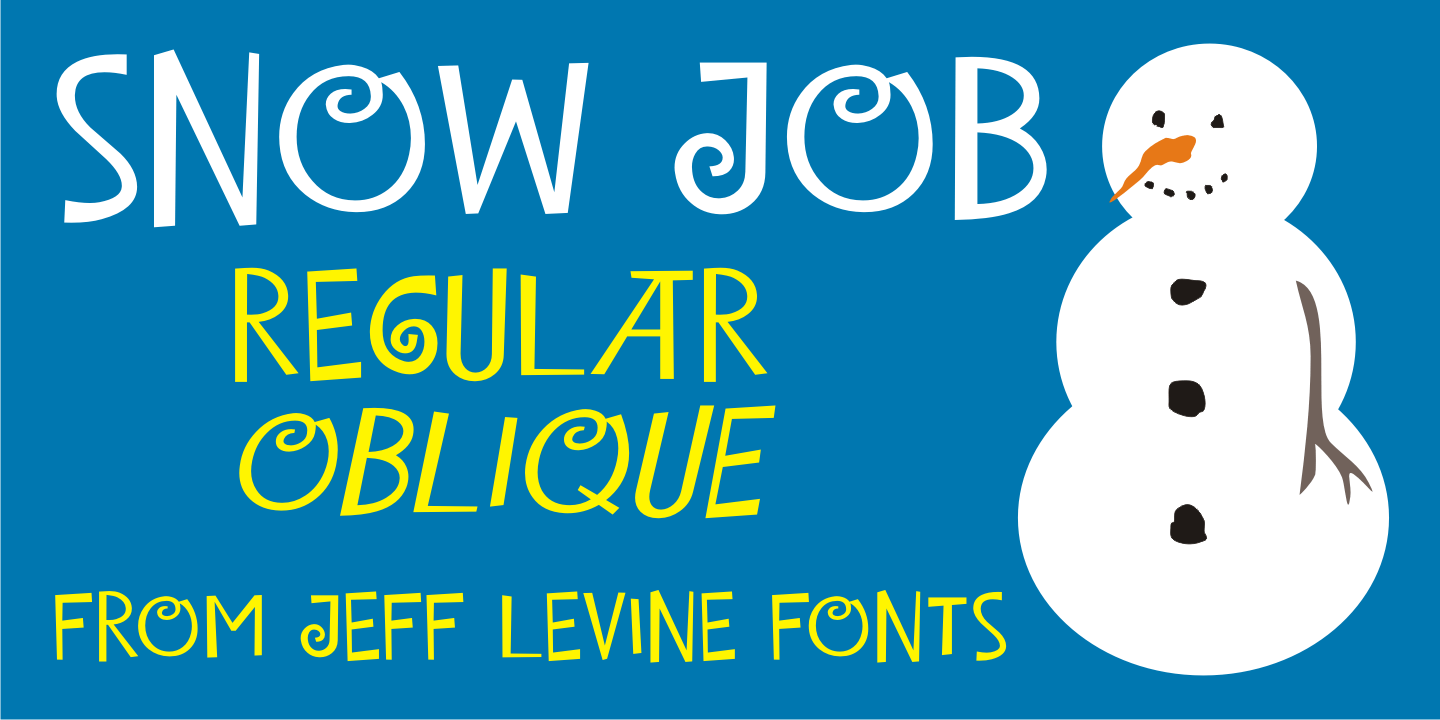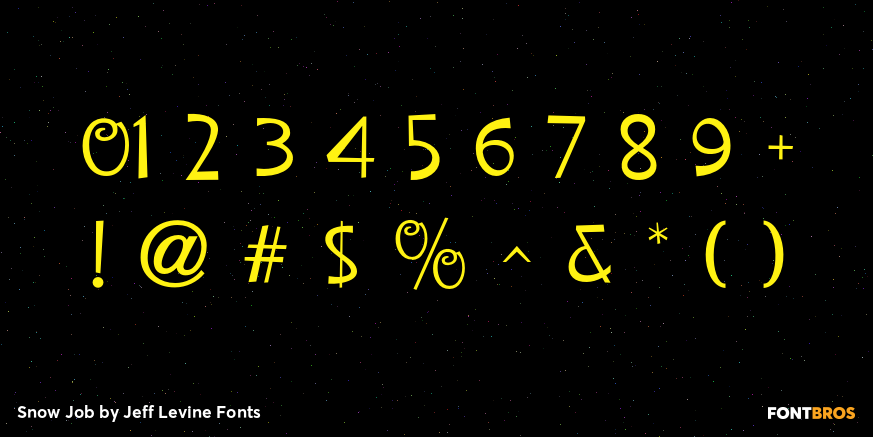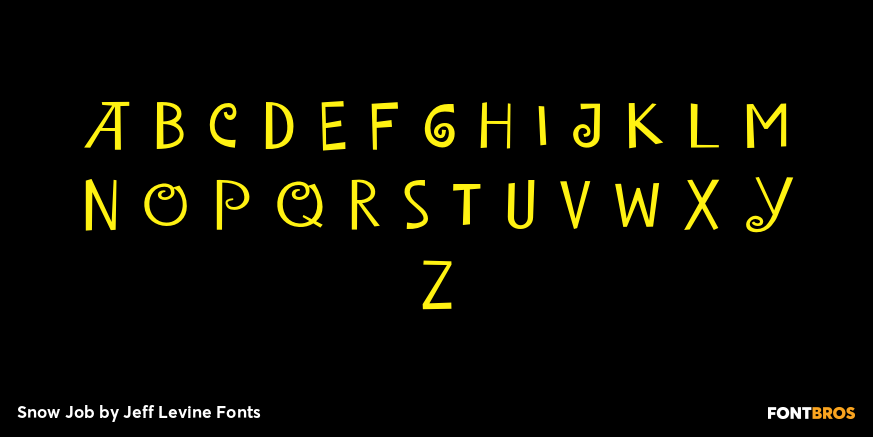
Snow Job
Snow Job JNL was inspired by the hand lettered titles for the 1964 Rankin-Bass animated holiday classic 'Rudolph the Red Nosed Reindeer'.
Because of the variable heights of the characters they float about the baseline in a free-form design.
Available in both regular and oblique versions, the typeface gets its name from both the winter theme of the TV special along with the old term for deceiving someone with compliments while hiding one's true intent.
Snow Job JNL Regular by Jeff Levine Fonts